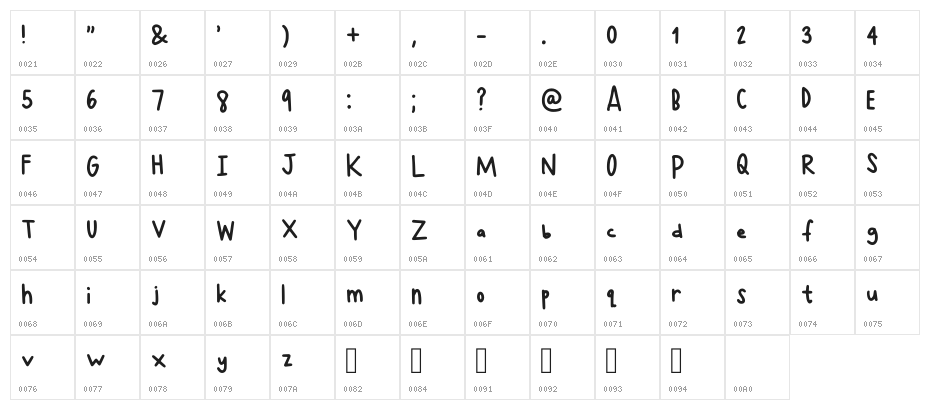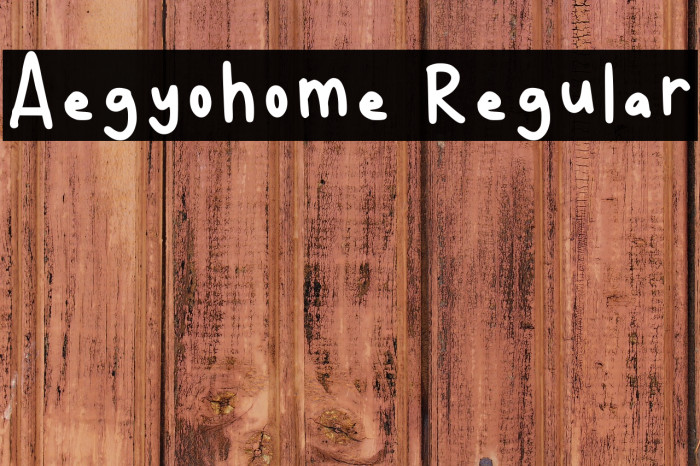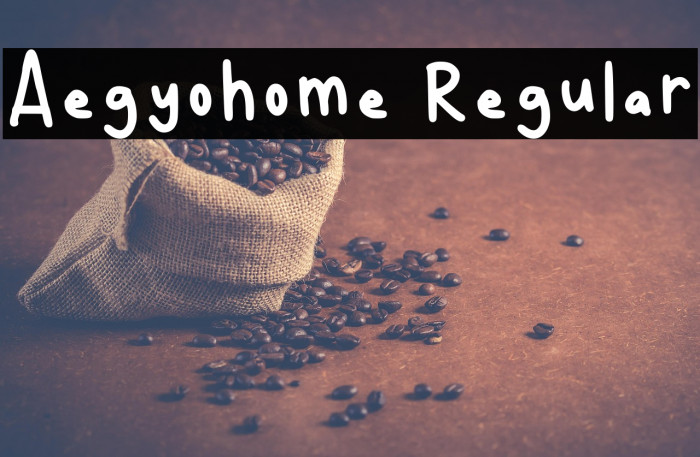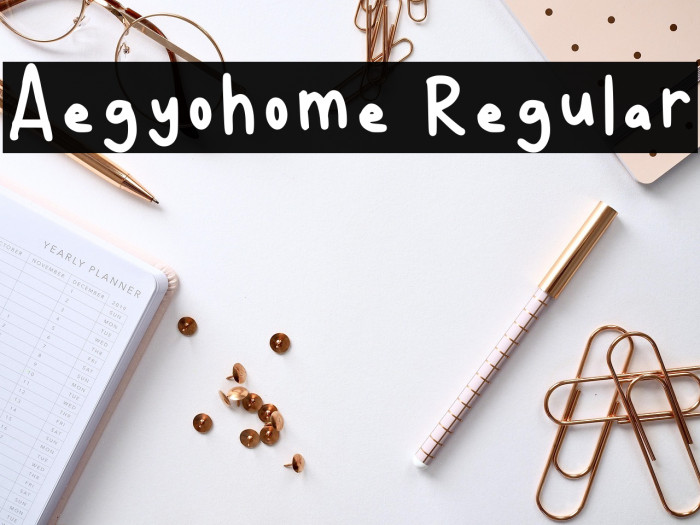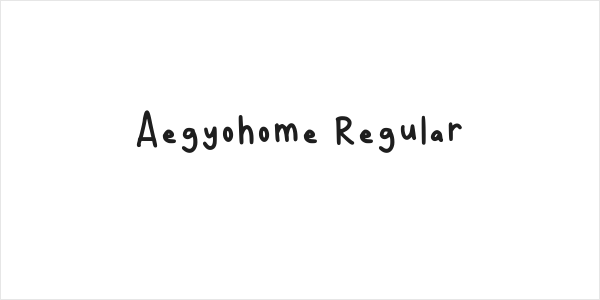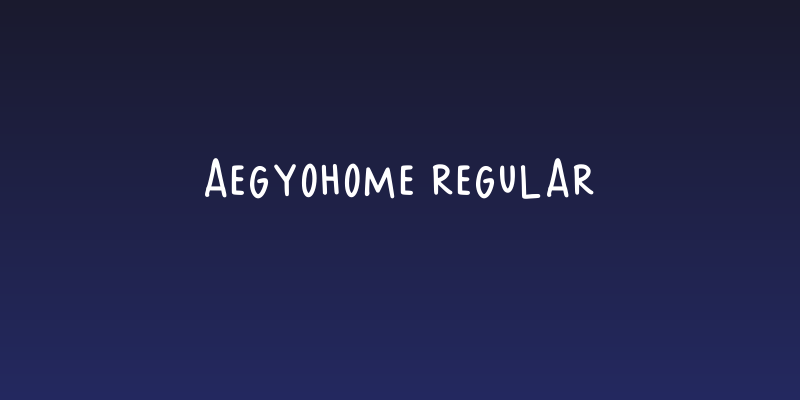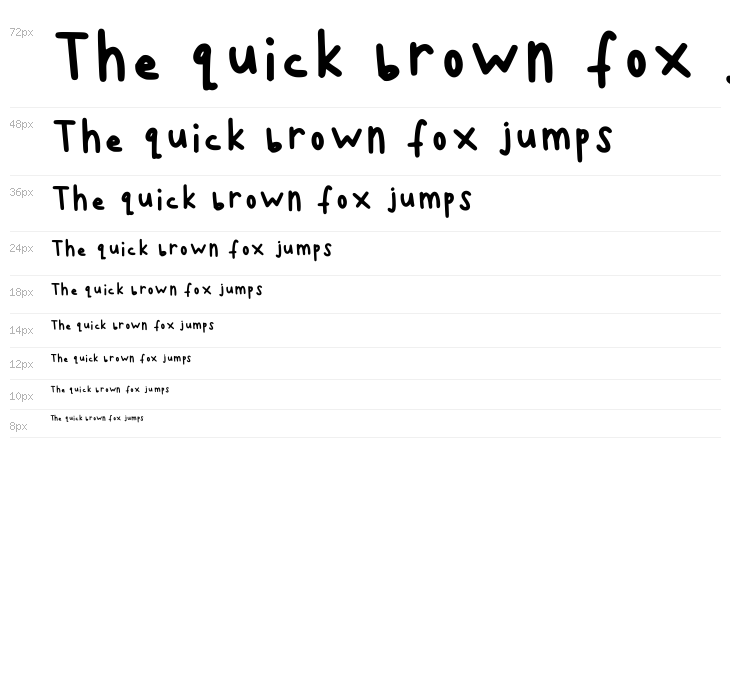
Aegyohome Regular Font
Aegyohome Regular Description
This playful and casual font features a handwritten style with a friendly and approachable appearance. The characters are slightly irregular, giving it a personal and informal feel. The strokes are consistent in thickness, providing a uniform look across all characters. The font maintains a balance between readability and style, making it suitable for various creative projects. Its whimsical nature is perfect for designs that aim to convey warmth and personality.
| Use Case | Logos, Headlines, Informal Text |
| Proposed Projects | Ideal for greeting cards, children's books, casual branding, and social media graphics. |